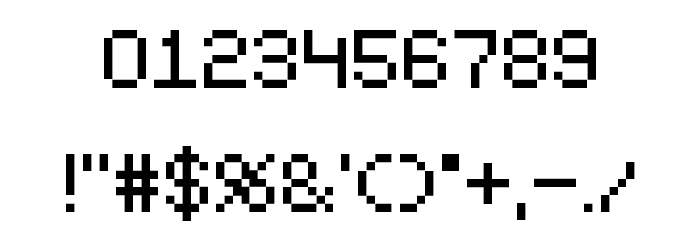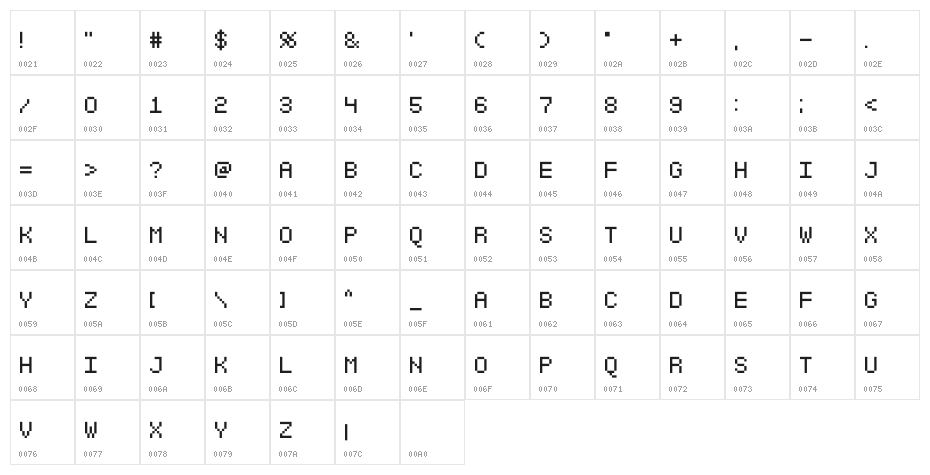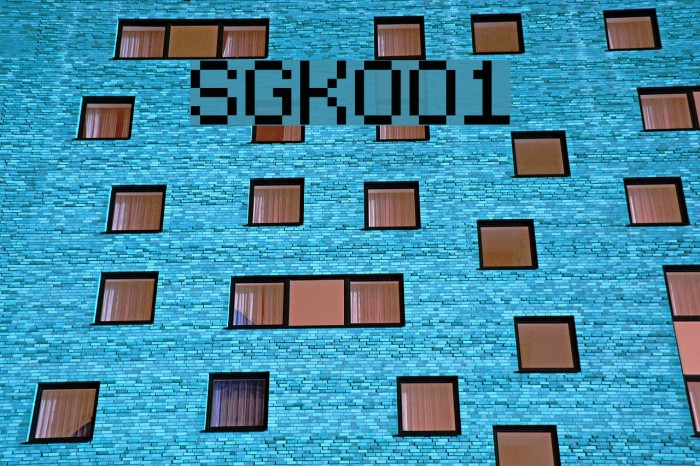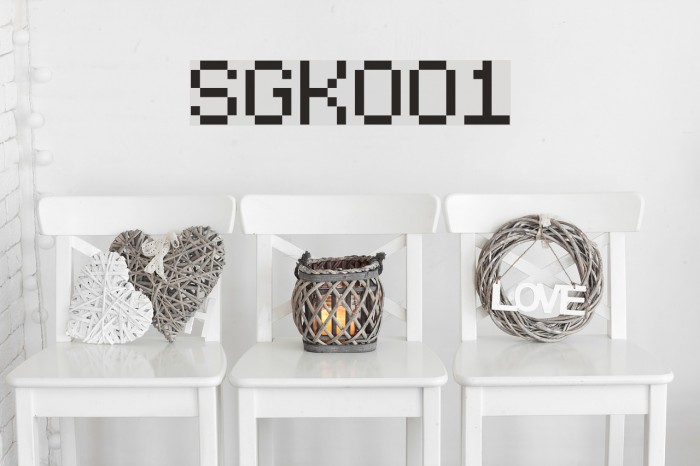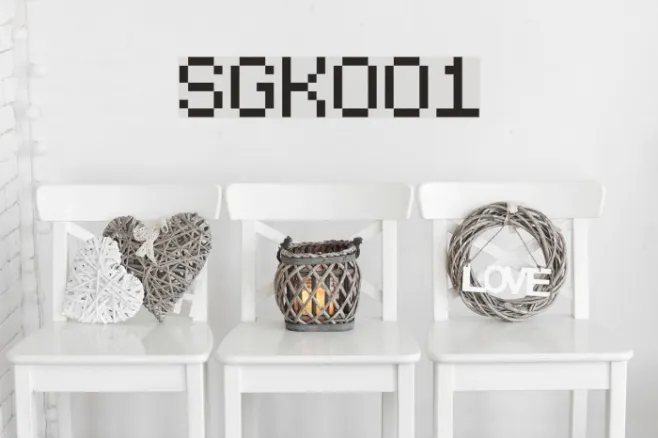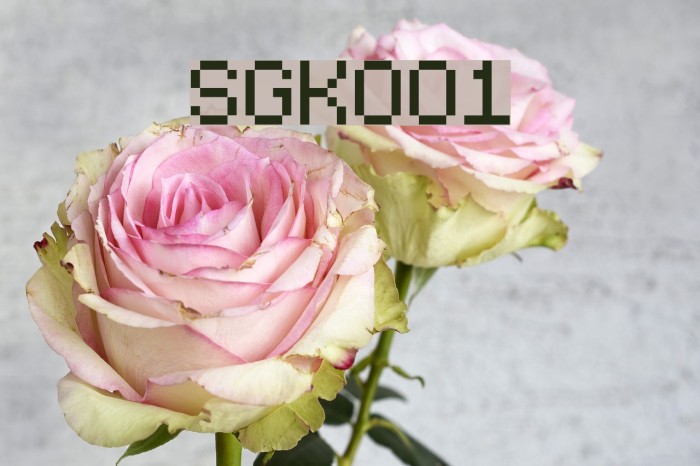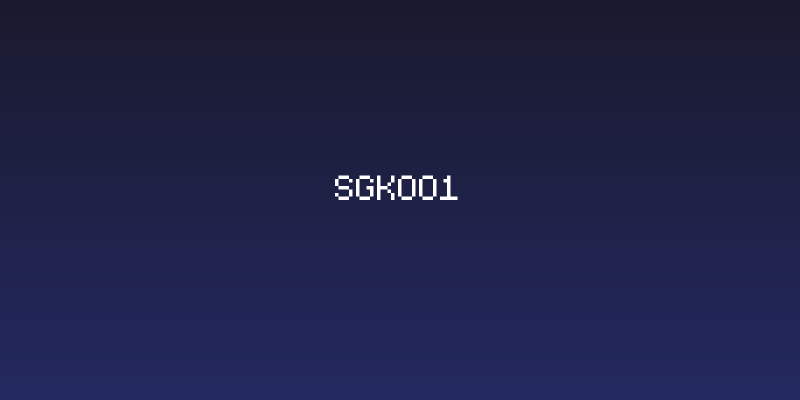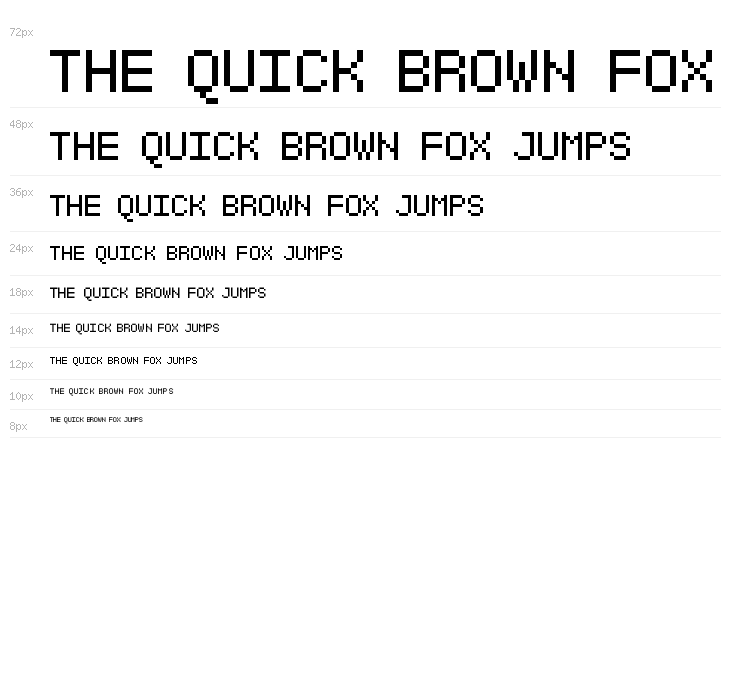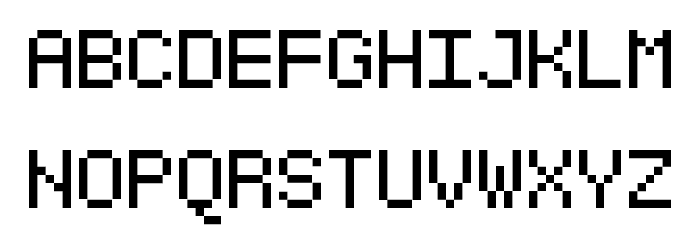
SGK001 Font
SGK001 Description
This font features a pixelated, blocky design reminiscent of early digital displays and retro video games. Each character is constructed with a grid-like precision, giving it a distinctly digital and geometric appearance. The uppercase and lowercase letters maintain a consistent height, contributing to a uniform and cohesive look. The numerals and special characters follow the same pixelated style, ensuring visual harmony across all elements. This font's simplicity and clarity make it highly legible, even at smaller sizes, while its retro aesthetic adds a nostalgic charm.
| Use Case | Headlines, Logos, Digital displays |
| Proposed Projects | Ideal for retro video game designs, digital-themed projects, tech logos, and nostalgic branding. |